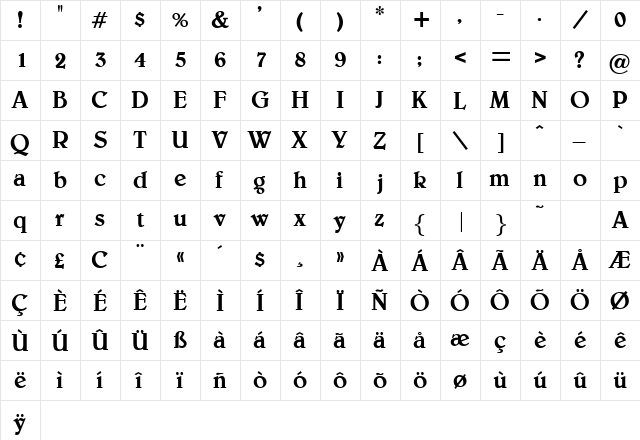
Belton Regular
Design Context for Belton Typeface
Belton offers clean, dependable letterforms without strong stylistic allegiance, making it a practical choice for designers who need flexibility.